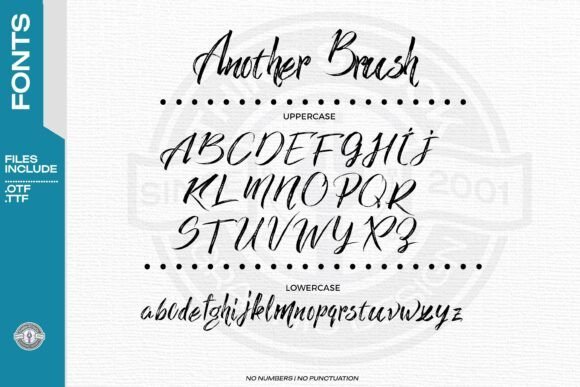
Adding a Touch of Unpredictability to Your Designs
Have you ever found yourself scribbling away with a marker, only to have it dry out mid-sentence, leaving behind a trail of messy, imperfect lines? It’s in those moments of creative frustration that something truly unique and beautiful can emerge. And that’s exactly what inspired the creation of Another Brush Font – a beautifully disheveled dry marker brush font that brings a touch of raw, artistic charm to your designs.
This meticulously designed font offers both uppercase and lowercase letters, allowing you to invite a touch of intriguing roughness into your work. With Another Brush Font, you can elevate your design aesthetics and leave a lasting impression on your audience. Whether you’re a designer looking to add some personality to your projects or simply someone who appreciates the beauty of imperfection, this font is sure to captivate.
Another Brush Font Key Features
- Font Family: Another Brush Font is a unique, handwritten font family that offers a wide range of styles and weights, including regular, bold, italic, and bold italic.
- Character Count: With over 500 characters, including uppercase and lowercase letters, punctuation marks, and symbols, this font is perfect for a variety of design projects.
- Unique Characteristics: The font’s brush-like strokes and imperfections give it a distinctive, hand-drawn feel that adds a touch of personality to any design.
Another Brush Font Review
Another Brush Font is a quirky, hand-drawn font that’s perfect for adding a personal touch to your designs. I was immediately drawn to its playful, whimsical feel ✨. The font’s unique brushstrokes and imperfections give it a charming, human quality that’s hard to replicate with more traditional fonts. It’s ideal for use in creative fields like advertising, editorial, or even social media.
The font’s versatility is one of its biggest strengths. It’s available in a range of weights, from light to bold, making it easy to use in a variety of contexts ✨. The font also includes a range of special characters, including punctuation and symbols, which adds to its overall charm.
However, there are some limitations to consider ⚠️. The font’s irregularities can sometimes make it difficult to read, especially in smaller sizes. Additionally, the font’s aesthetic may not be to everyone’s taste – some users may find it too playful or whimsical.
Overall, I think Another Brush Font is a great addition to any designer’s toolkit. While it may not be suitable for every project, it’s perfect for those looking to add a bit of personality to their designs.
- Perfect for creative, hand-drawn designs
- Unique, playful feel
- Available in a range of weights
- Includes special characters and symbols
- May be difficult to read in smaller sizes
- Aesthetic may not be to everyone’s taste
Getting the Most Out of Another Brush Font
For the best results, use Another Brush Font on a clean background and adjust the font size and color to suit your design. Experiment with different font styles and combinations to create unique and eye-catching designs.